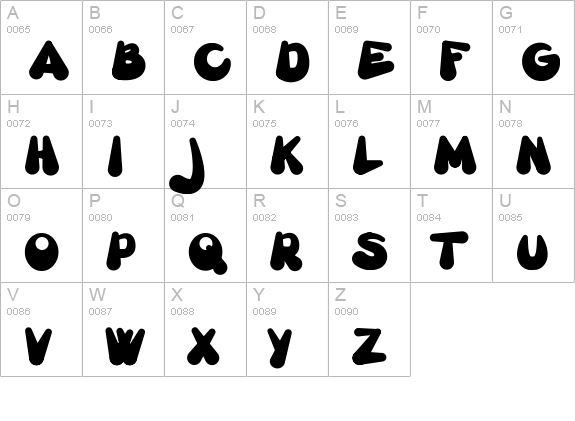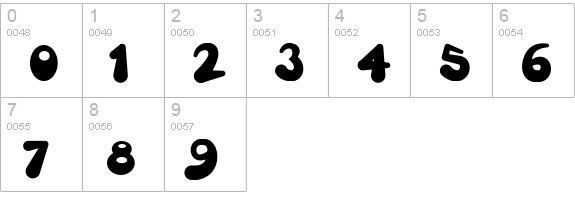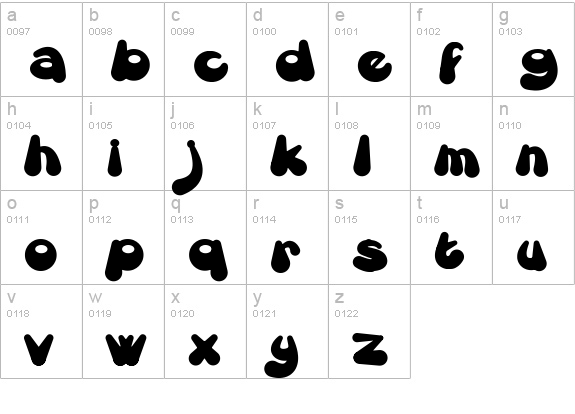
Gretoon Font Details
Gretoon font is a whimsical and playful typeface that brings a touch of fun and creativity to any design project. Its unique and quirky letterforms will instantly catch the eye and add a delightful charm to your designs. Free to download at FontsMarket.com, Gretoon font offers a wide range of possibilities for both personal and commercial use. Whether you're designing a children's book, a greeting card, a website, or any other creative project, this font is sure to make a lasting impression. The letters of Gretoon font have a hand-drawn quality, with irregular lines and playful curves that give it a warm and friendly feel. Each character has been carefully crafted to maintain legibility while still retaining its distinctive style. With its bold and vibrant appearance, Gretoon font is perfect for adding a touch of whimsy and personality to any design. Not only is Gretoon font visually appealing, but it also offers a wide range of glyphs and ligatures, allowing you to create unique and dynamic typographic compositions. Whether you're looking to add a touch of emphasis to a headline or create an eye-catching logo, this font has the versatility to meet your needs. The best part? Gretoon font is completely free to download at FontsMarket.com. This means that you can add this delightful typeface to your collection without any cost. So why wait? Download Gretoon font today and let your creativity soar!